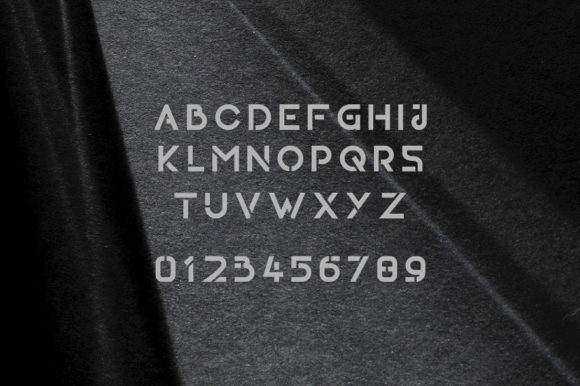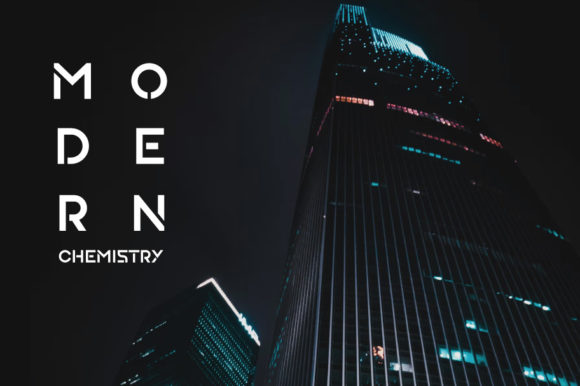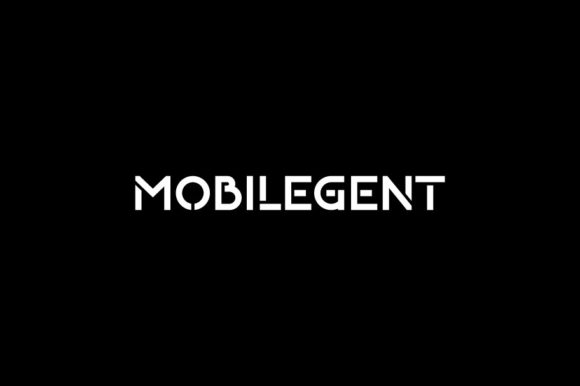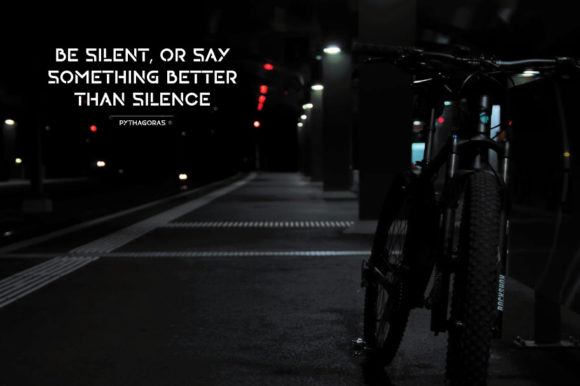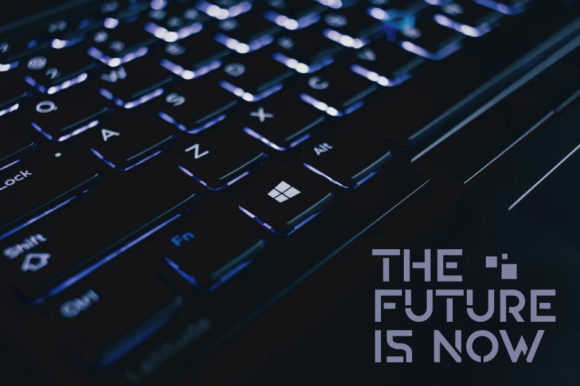
Introducing Eqra Font: The Ultimate Choice for Modern Designs
Are you a designer or crafter looking for a font that exudes modernity and sophistication? Look no further than Eqra Font, a stunning sans serif font that is perfect for urban crafts, futuristic designs, and other cool creative projects. With its clean edges and tidy appearance, Eqra Font is sure to elevate your designs to the next level.
What is Eqra Font?
Eqra Font is a modern and minimalist sans serif font that is designed to provide a clean and elegant look to your designs. Its simple yet sophisticated design makes it perfect for a wide range of applications, from digital designs to print materials. The font features clean edges and a very tidy appearance, making it ideal for designers and crafters who want to create modern and stylish designs.
Key Features of Eqra Font
Eqra Font comes with a range of features that make it an excellent choice for designers and crafters. Some of its key features include:
- Clean and minimalist design: Eqra Font features a clean and minimalist design that is perfect for modern designs.
- Sans serif: The font is a sans serif font, which means it doesn’t have any decorative lines or flourishes.
- Clean edges: The font features clean edges that provide a crisp and sharp look to your designs.
- Tidy appearance: Eqra Font has a very tidy appearance, making it perfect for designs that require a high level of precision and accuracy.
Uses of Eqra Font
Eqra Font is a versatile font that can be used for a wide range of applications, including:
- Urban crafts: Eqra Font is perfect for urban crafts, such as graffiti, stencil art, and other forms of street art.
- Futuristic designs: The font’s modern and minimalist design makes it ideal for futuristic designs, such as sci-fi posters, logos, and branding materials.
- Digital designs: Eqra Font can be used for digital designs, such as website headers, social media graphics, and other online materials.
- Print materials: The font can also be used for print materials, such as brochures, flyers, and business cards.
Benefits of Using Eqra Font
There are several benefits to using Eqra Font for your designs, including:
- Modern and stylish look: Eqra Font provides a modern and stylish look to your designs, which can help you stand out from the crowd.
- High level of legibility: The font is highly legible, even at small sizes, making it perfect for designs that require a lot of text.
- Versatility: Eqra Font can be used for a wide range of applications, from digital designs to print materials.
In conclusion, Eqra Font is a stunning sans serif font that is perfect for designers and crafters who want to create modern and stylish designs. With its clean edges and tidy appearance, Eqra Font is sure to elevate your designs to the next level. Whether you’re working on urban crafts, futuristic designs, or other cool creative projects, Eqra Font is an excellent choice. So why wait? Download Eqra Font today and start creating amazing designs!
- What is Eqra Font? Eqra Font is a modern and minimalist sans serif font with clean edges and a very tidy appearance.
- What is Eqra Font used for? Eqra Font can be used for a wide range of applications, including urban crafts, futuristic designs, digital designs, and print materials.